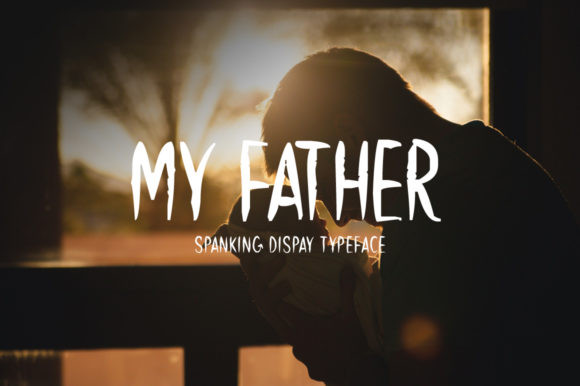
My Father Font
My Father is a beautiful display font, tall and distinct, created to become a true favorite. Fall in love with its incredibly versatile style and use it to make your ideas come alive!